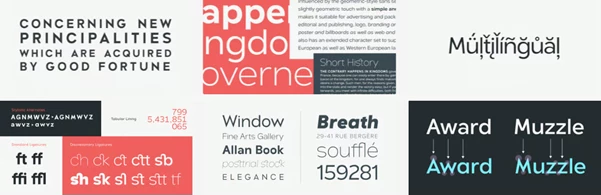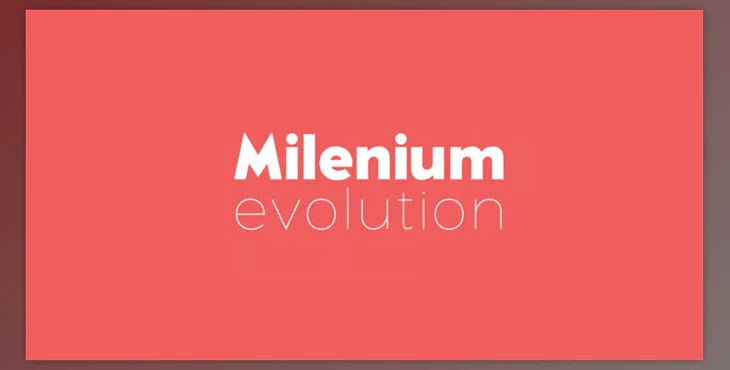
Delecta is a complete sans serif font family with matching italics across seven weights. Delecta is rooted in the geometric sans serif font family and conveys a clean, crisp, and highly polished appearance. Slightly geometric, it's very much modern and current, making it versatile across the board for many different types of projects. Delecta is perfect for advertising and packaging; seasonal and holiday graphics; editorial and magazine spreads; corporate branding; film, fashion, hospitality, and food branding. It's also suitable for posters and billboards, as well as on the web and screens for digital projects.
Beyond the visual attractiveness, Delecta contains some advanced OpenType features, including stylistic alternates, which are sets of beautifully rendered alternate characters, giving the designer flexibility to change the font's vibe at any given time. It also has a complete character set to accommodate Central European and Eastern European Western language accents.